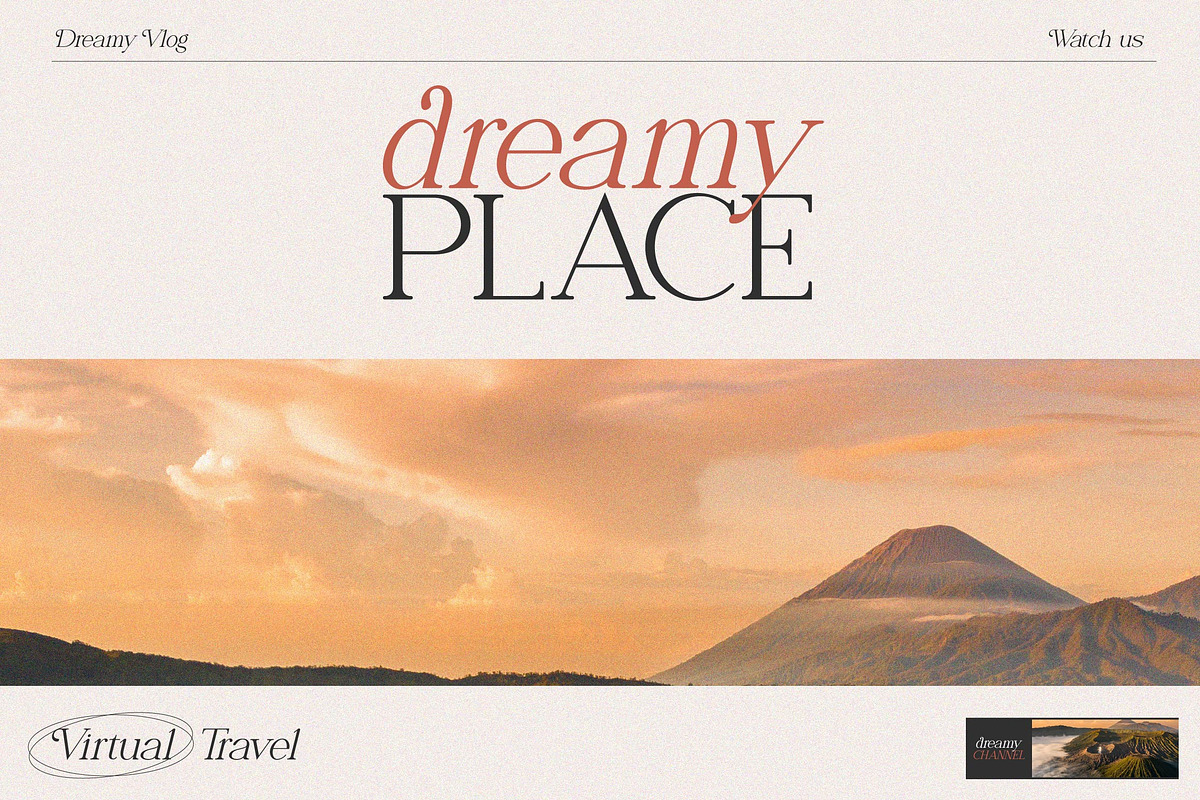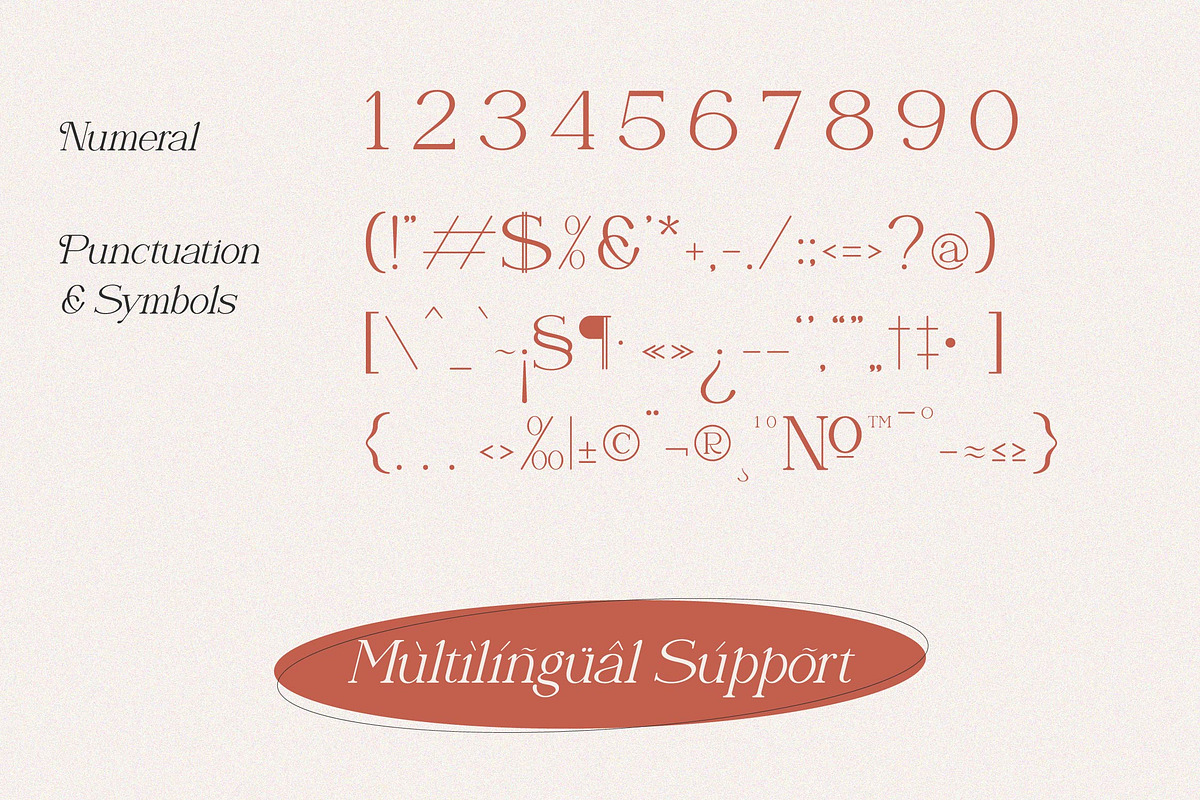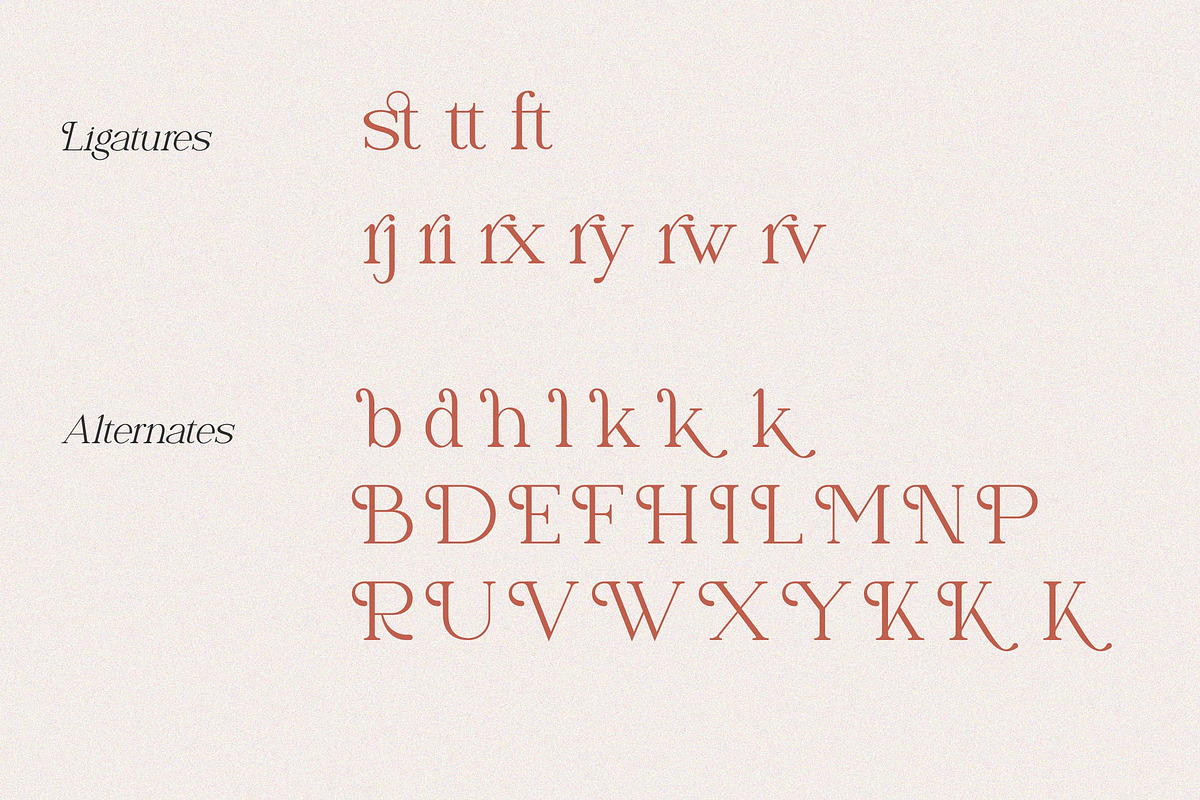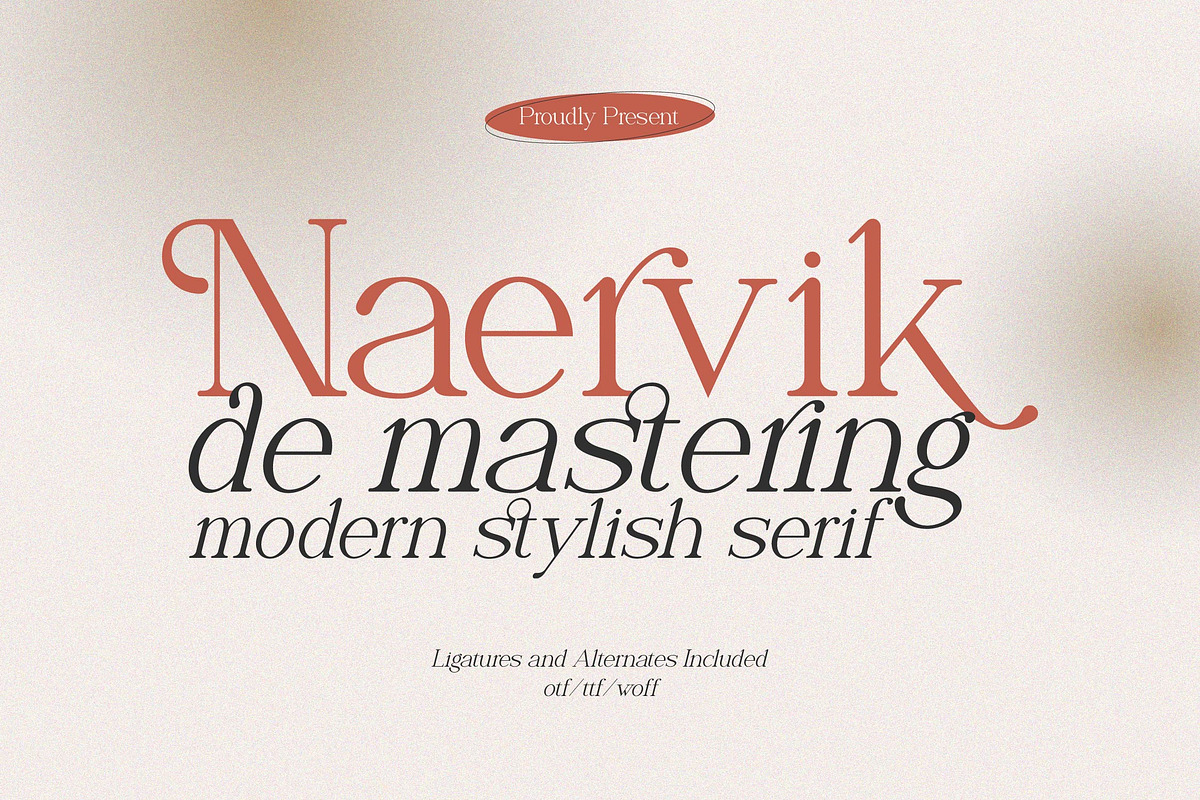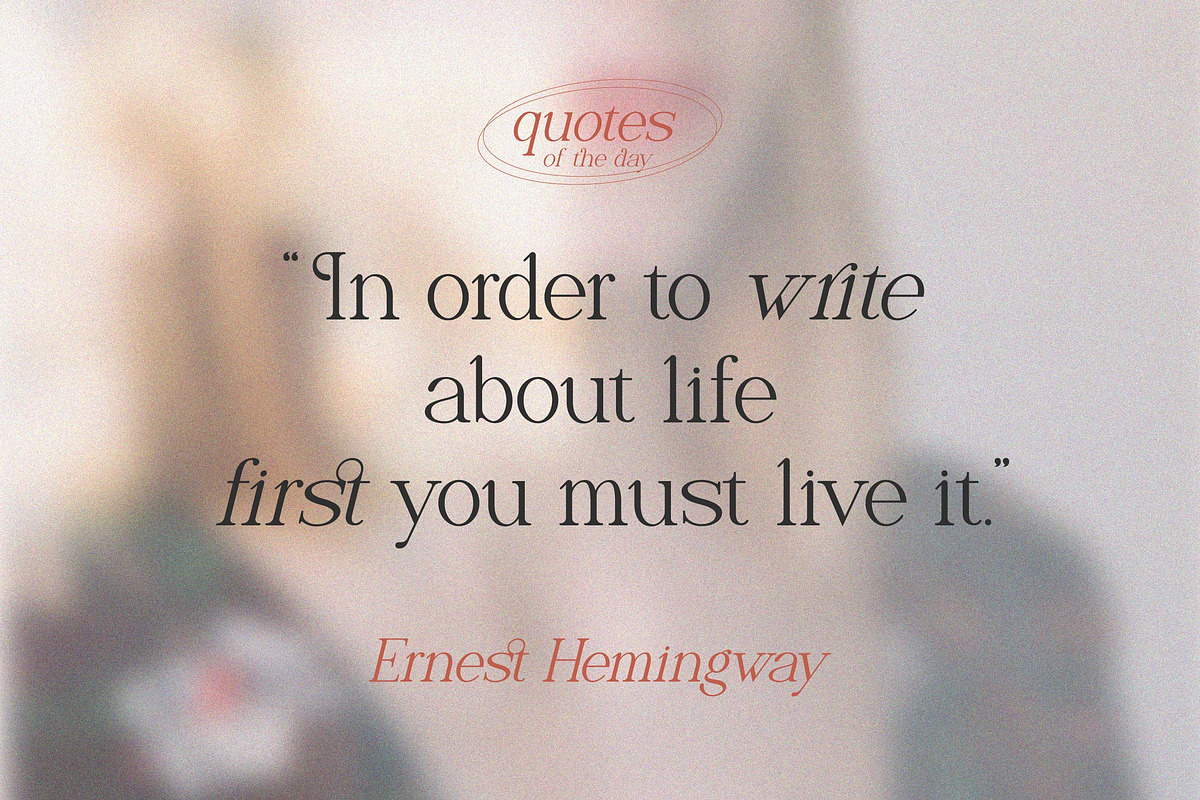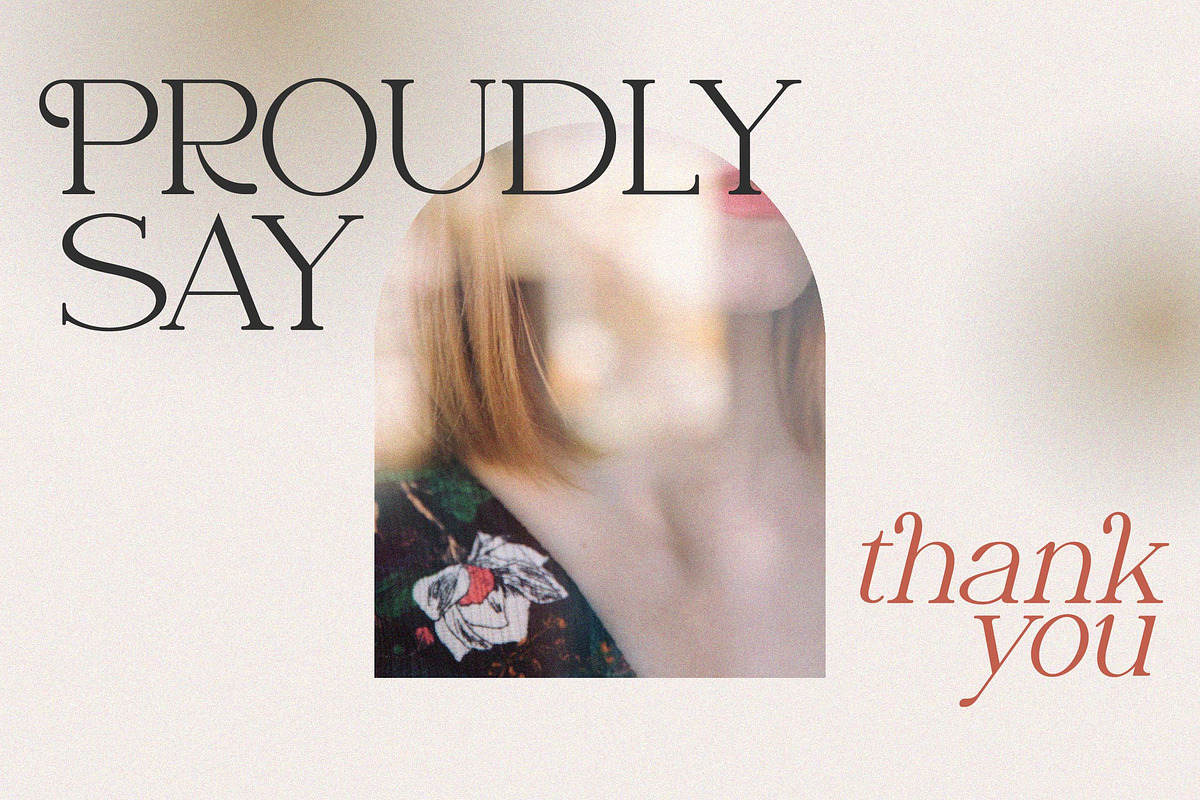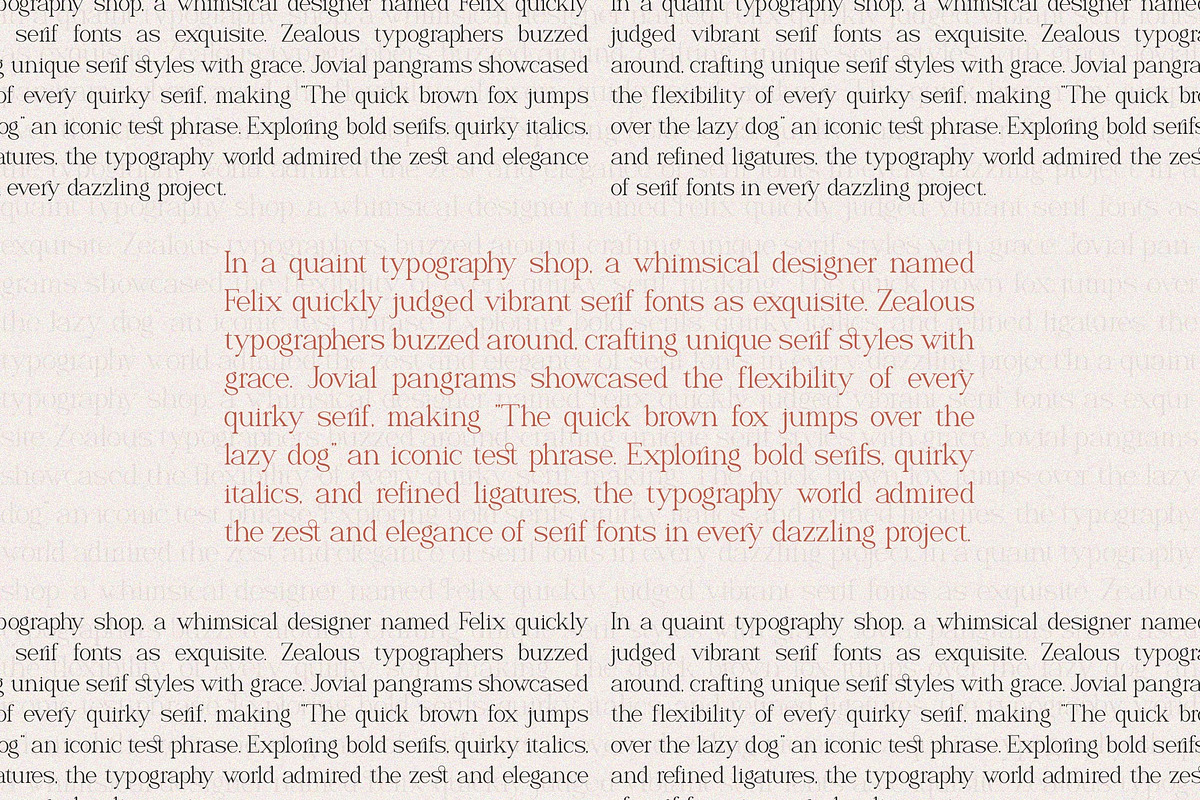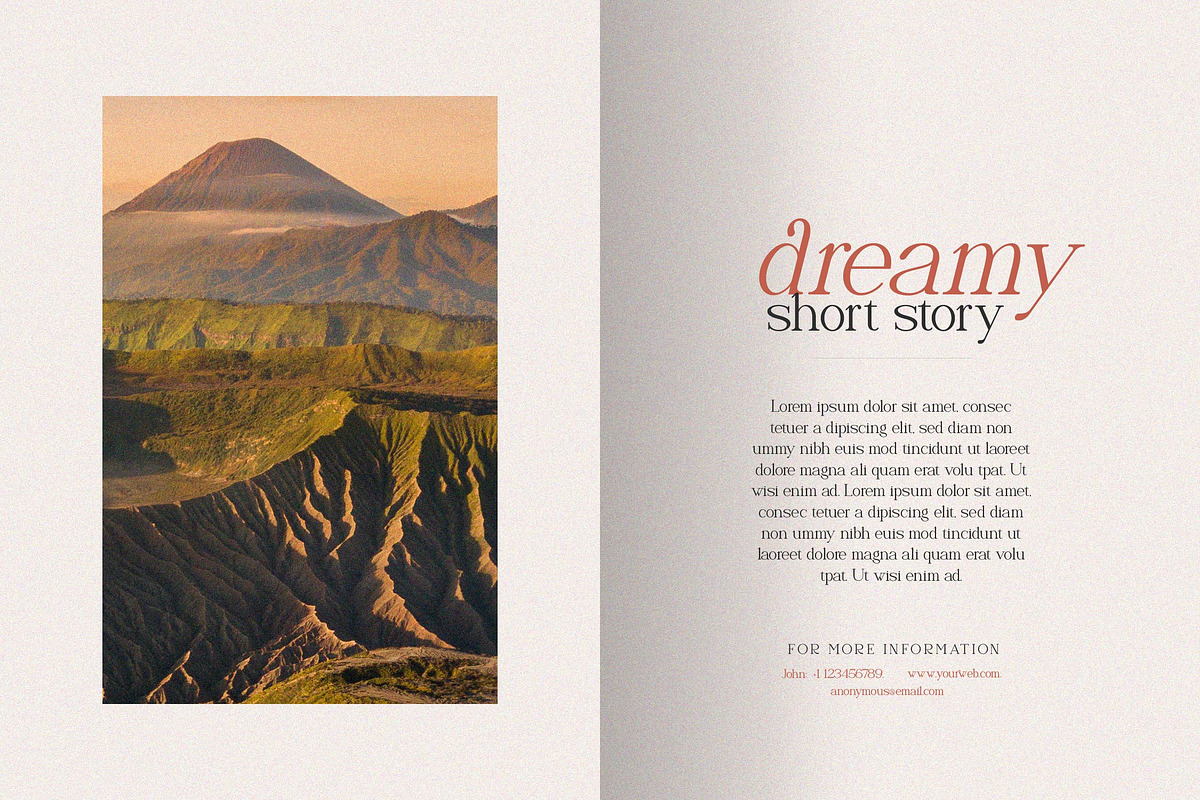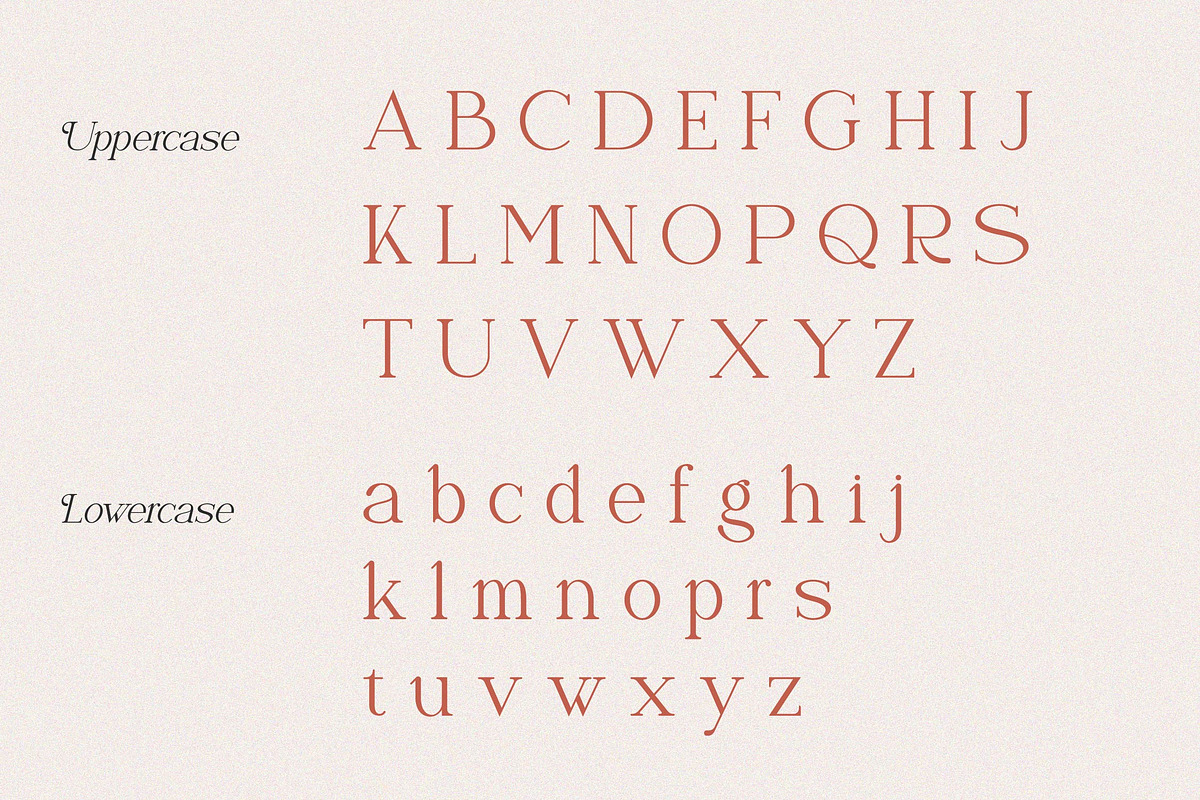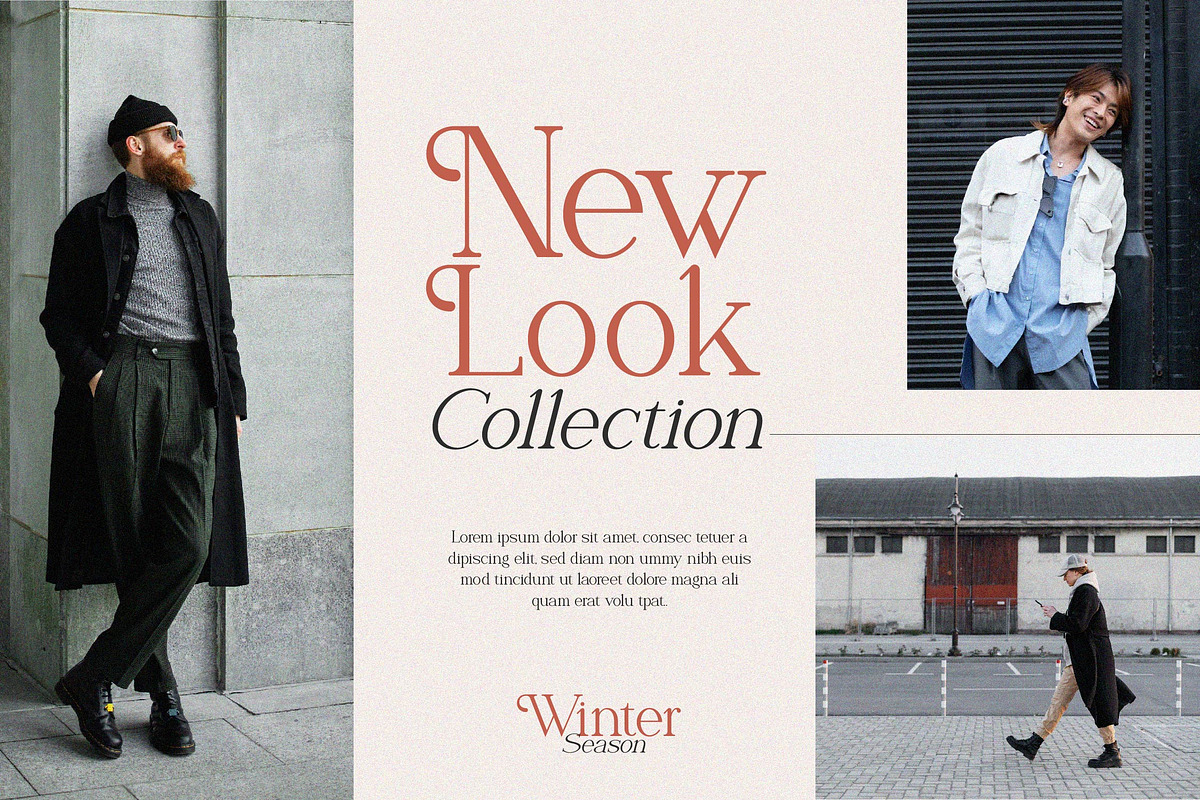
Naervik | Modern Serif
Naervik | Modern Serif, from Denustudios, suitable for any projects such as: logos, branding projects, homeware designs, product packaging, mugs, quotes, posters, shopping bags, t-shirts, book covers, name card, invitation cards, greeting cards, label, photography, watermark, special events, and all your other lovely projects that need a modern serif taste.